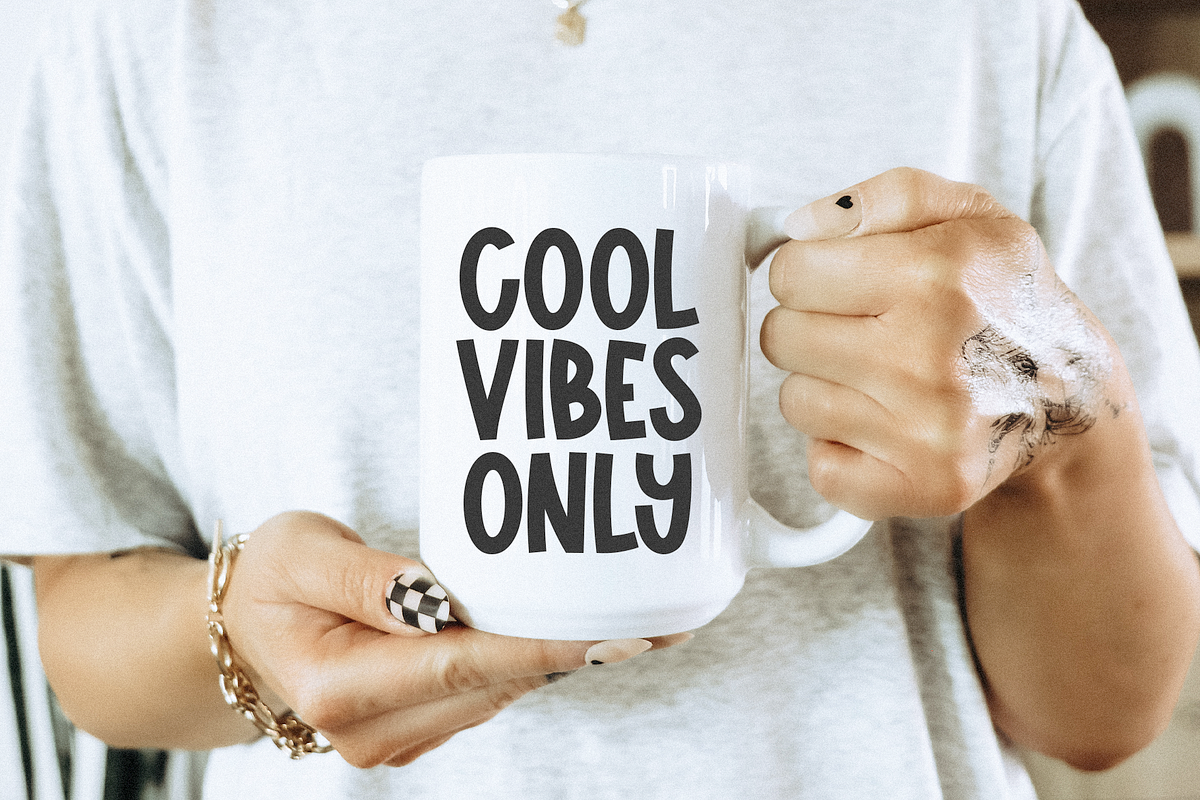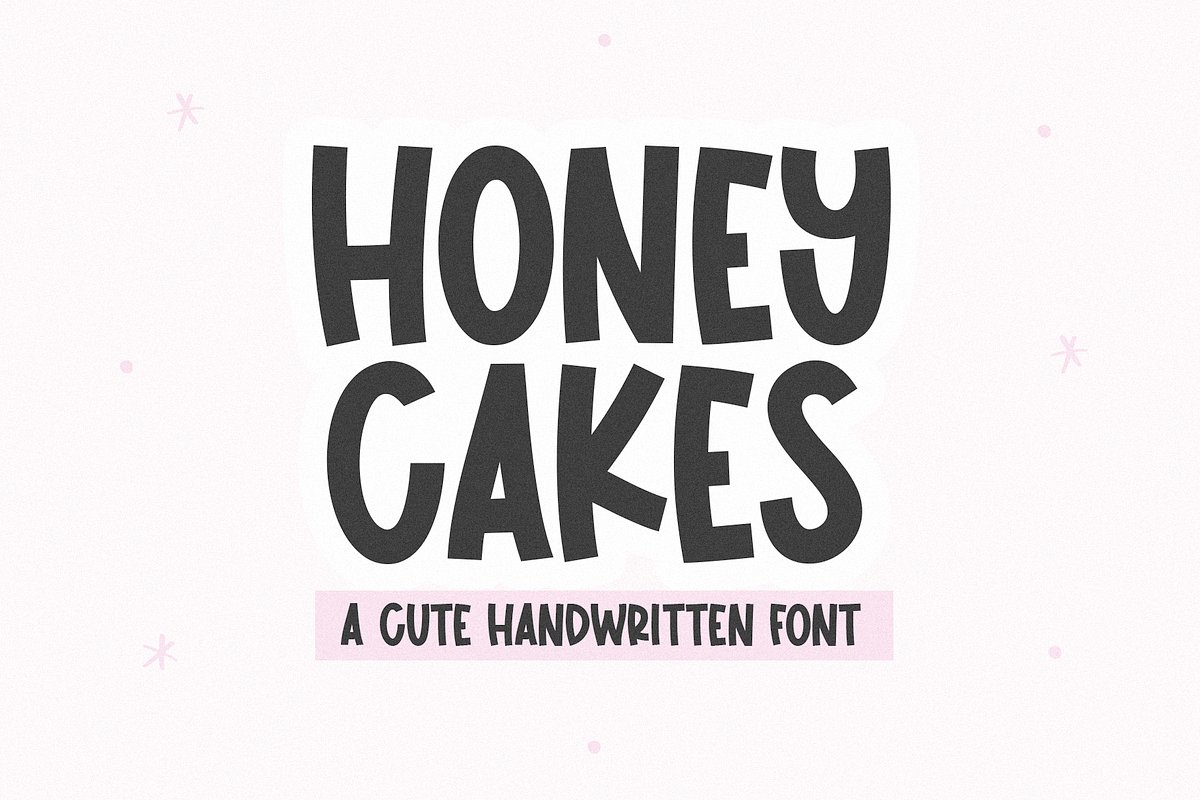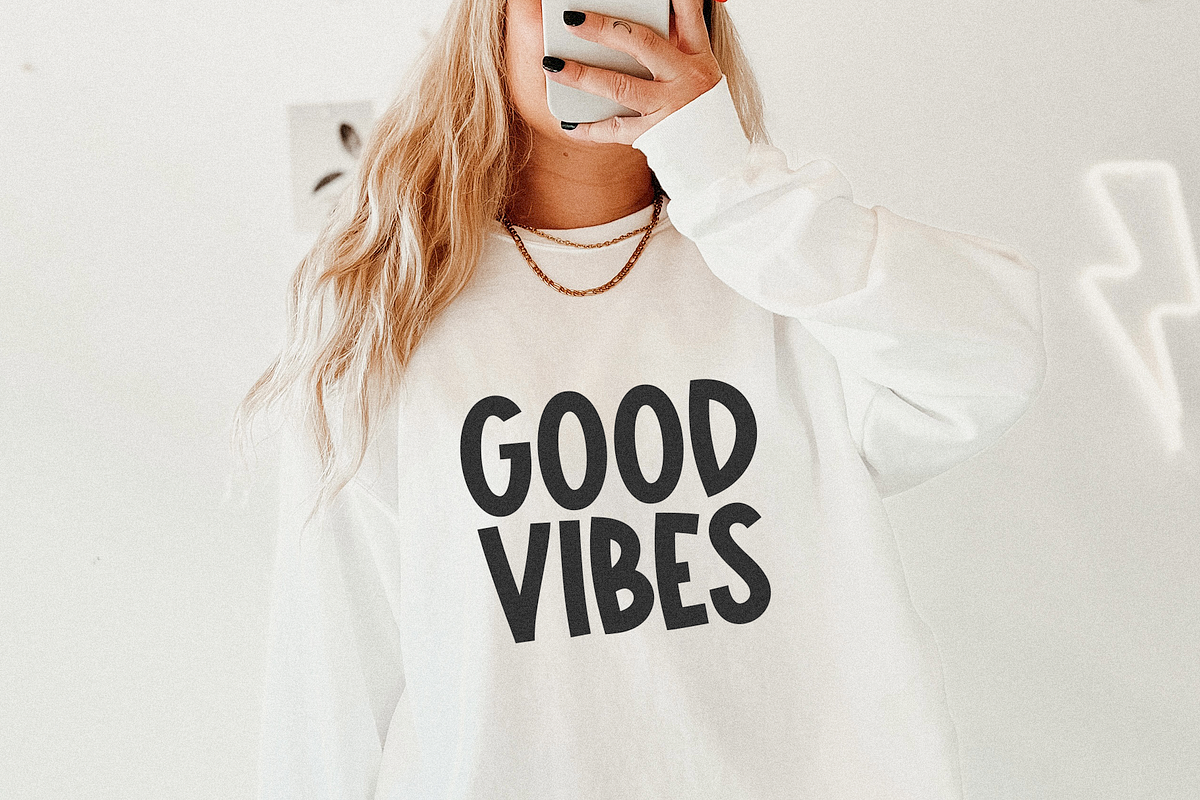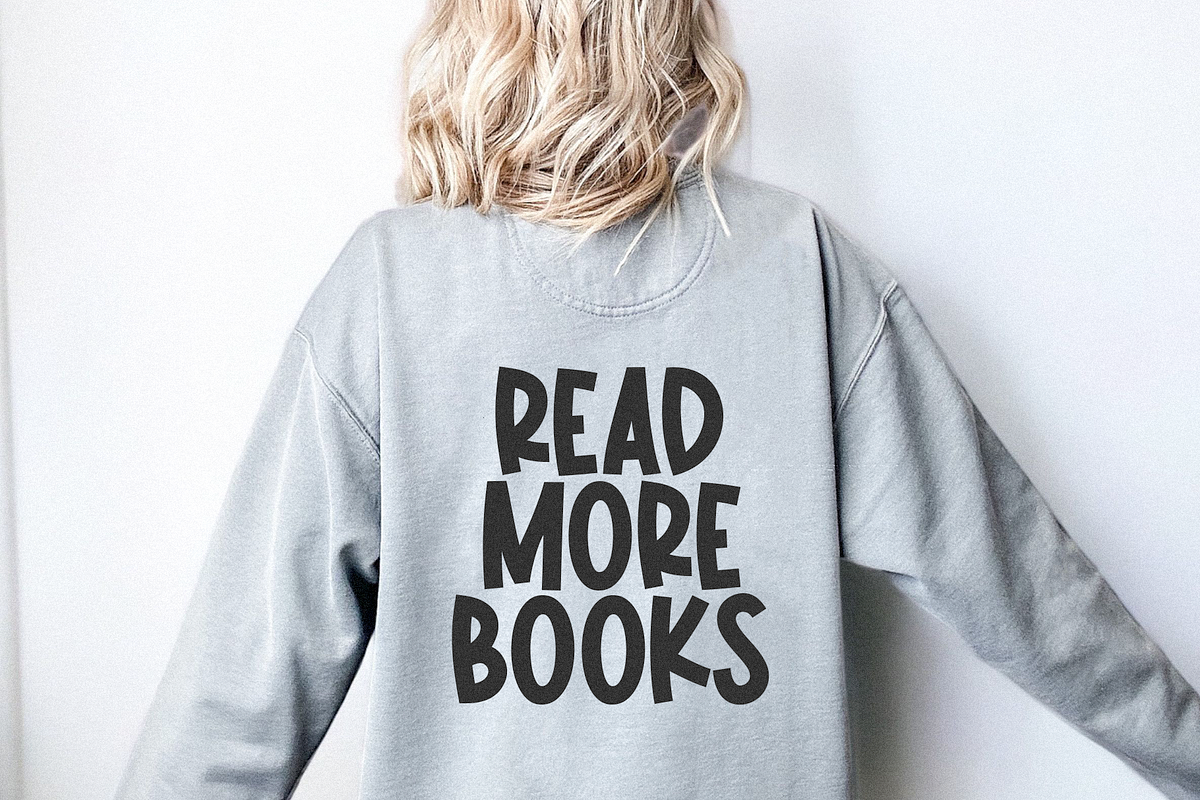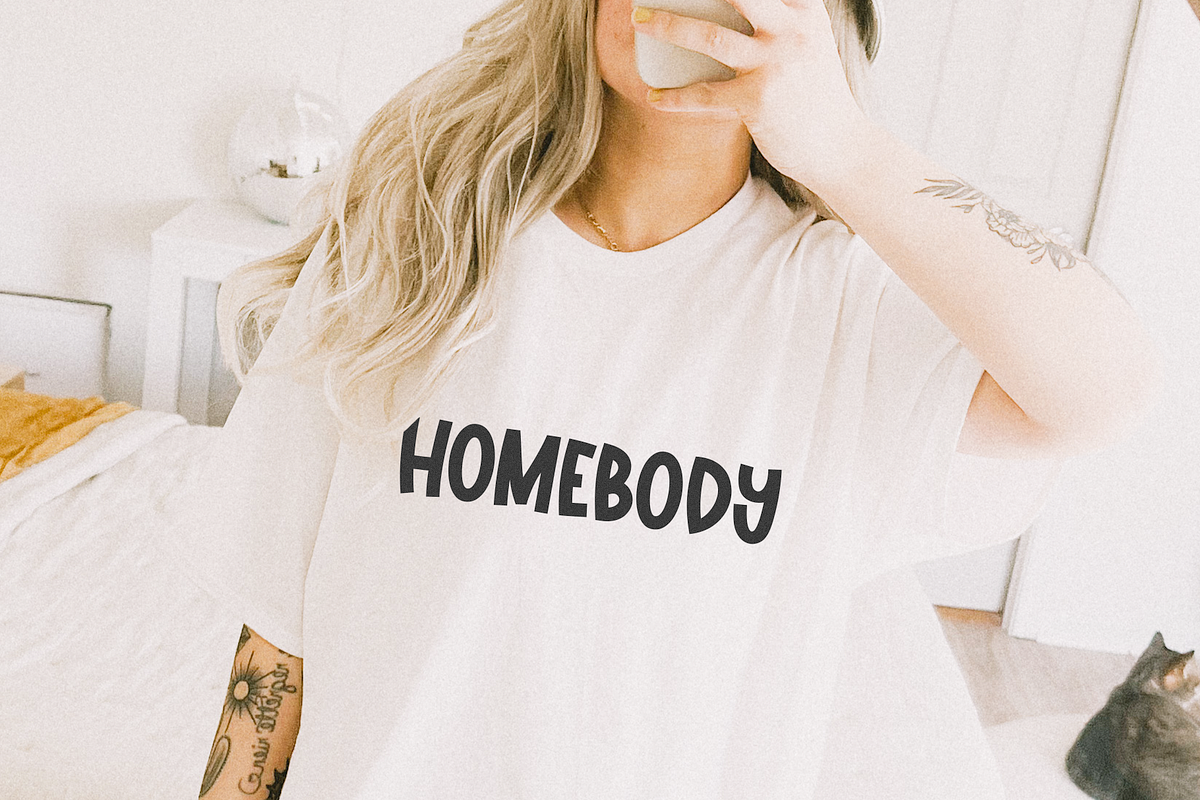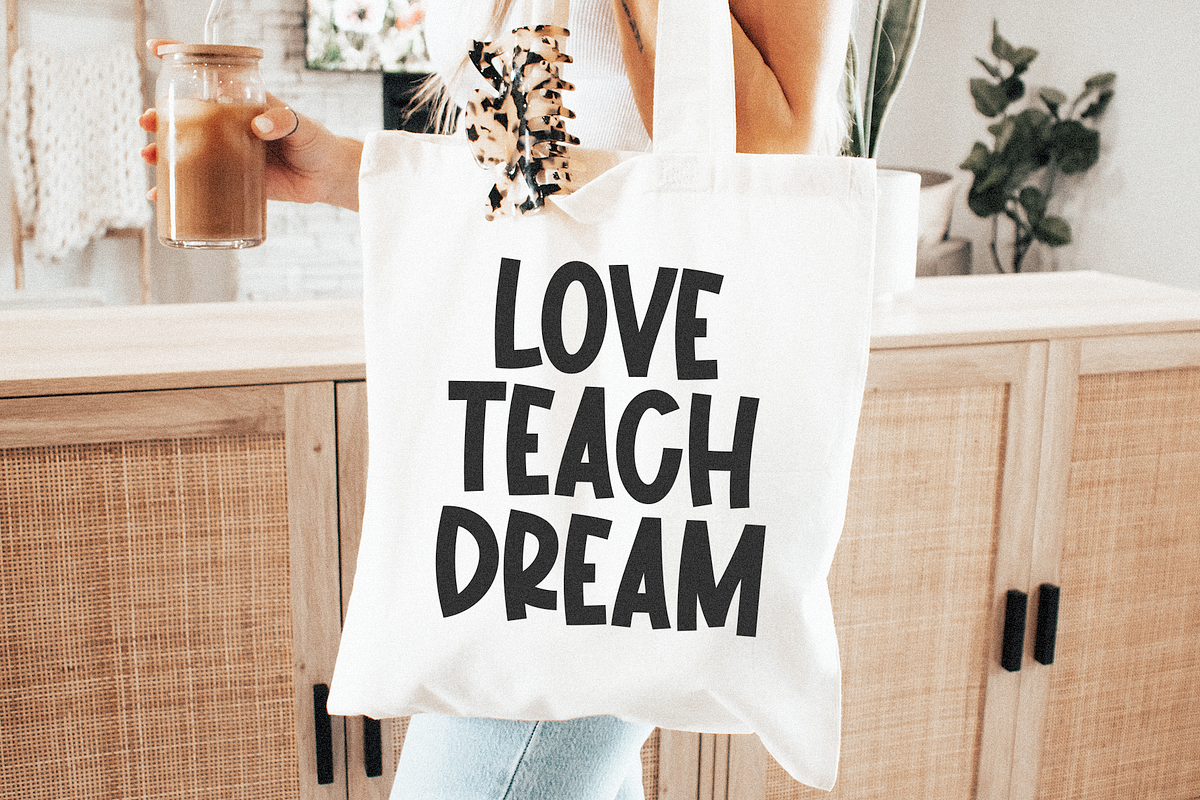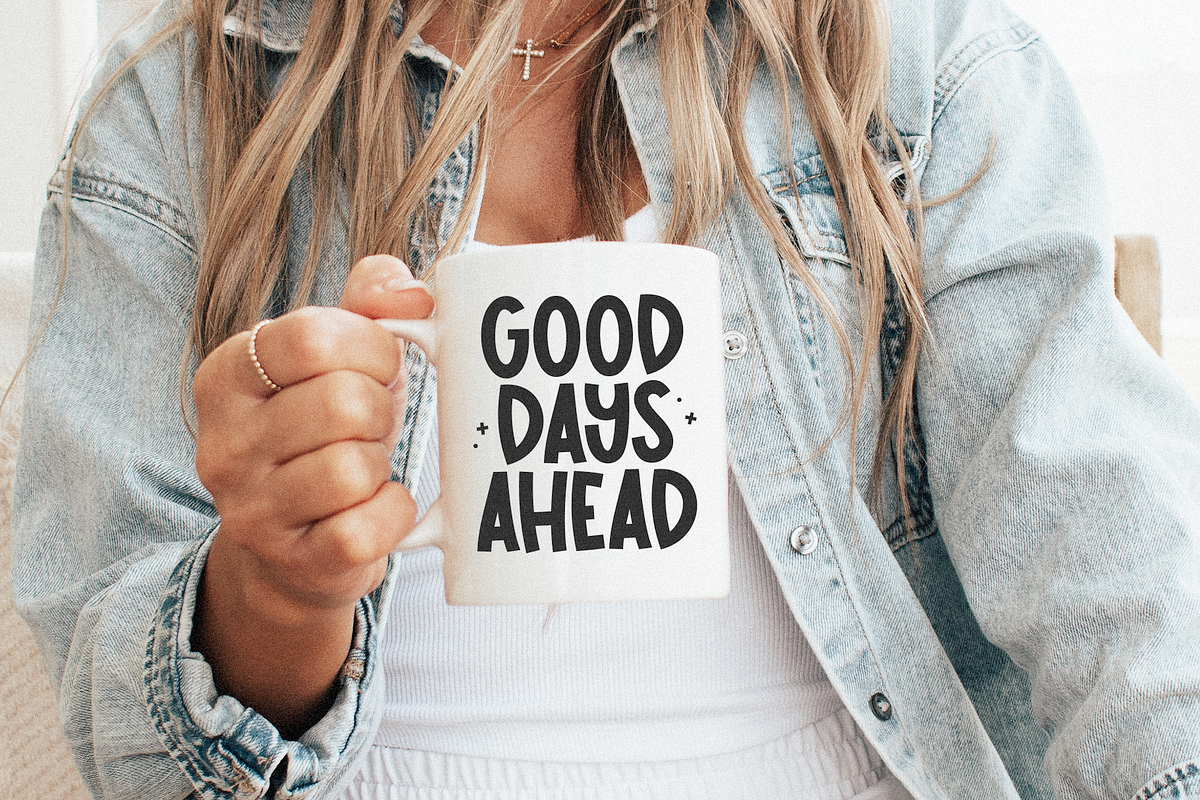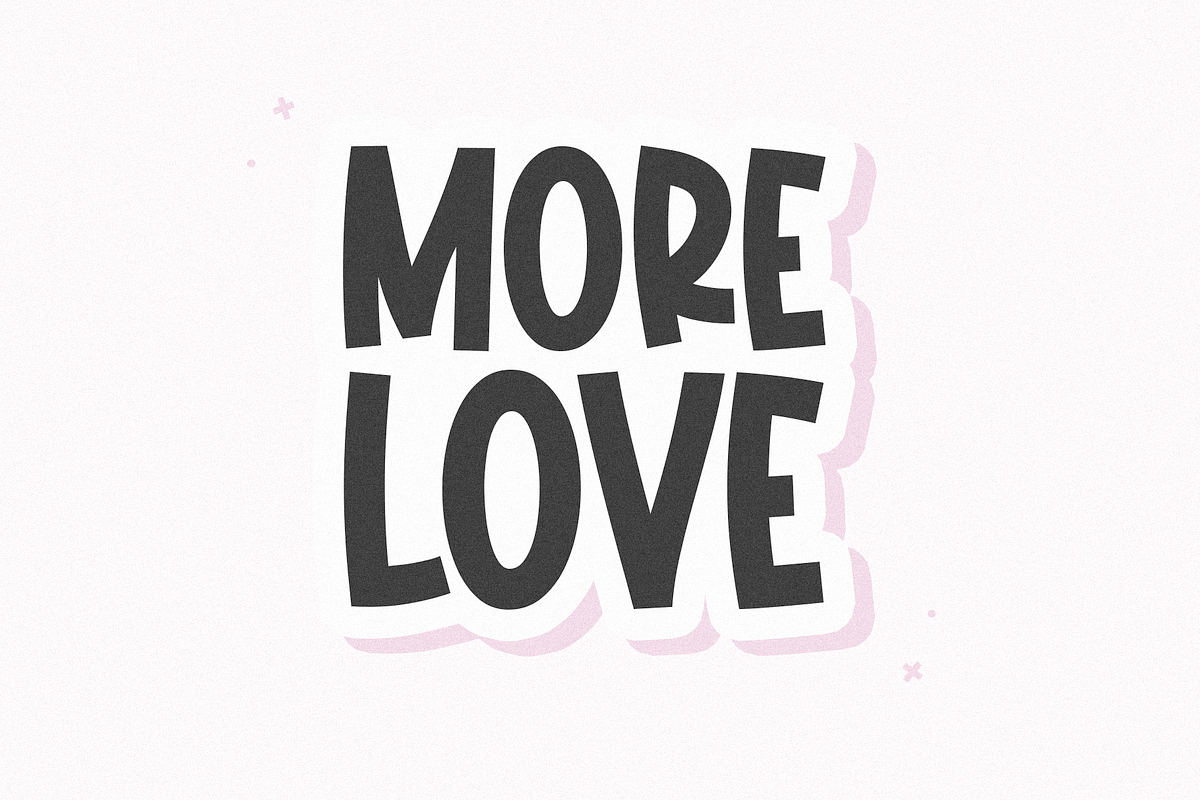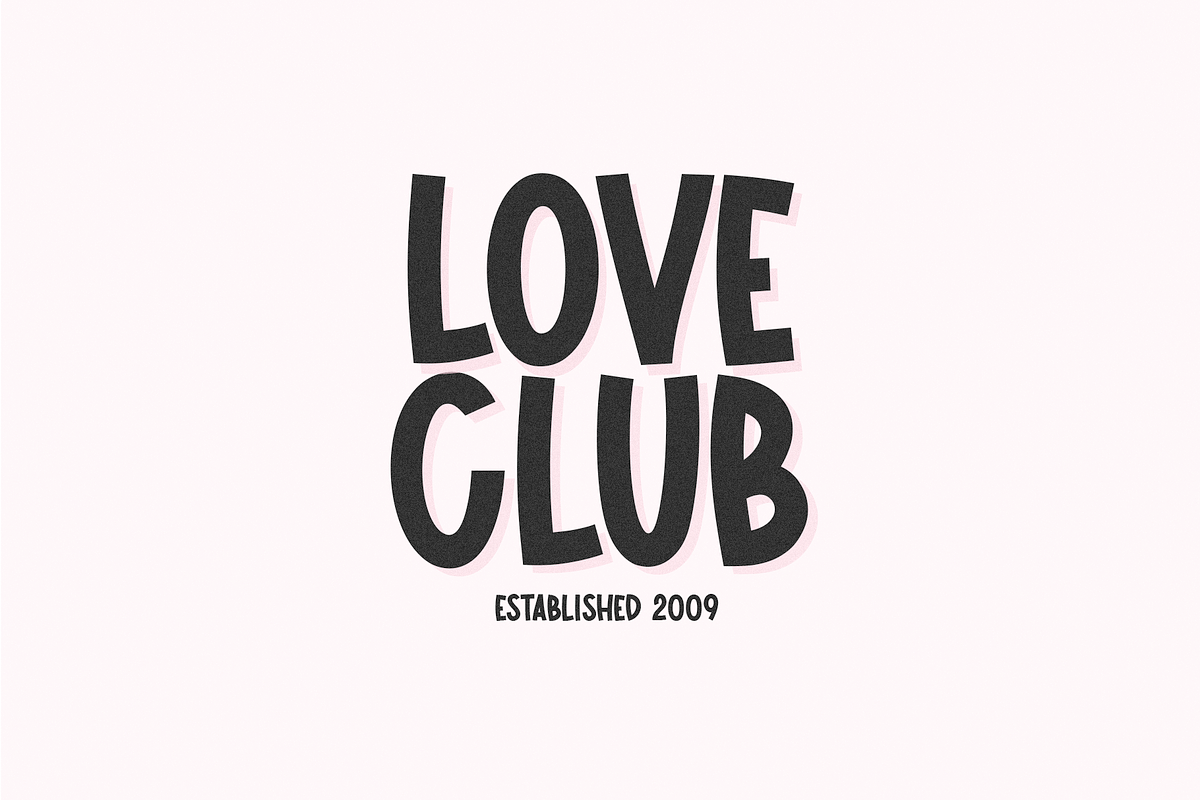
Honey Cakes | Cute + Quirky Font
Honey Cakes is a quirky handwritten font!
This font is perfect for cricut projects, canva, shirts, stickers, teachers, goodnotes, planners, lasers, logos and more!